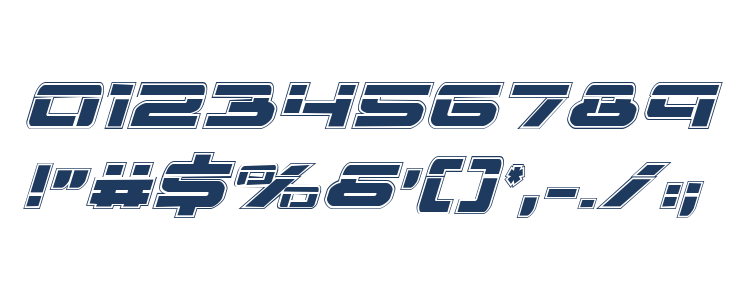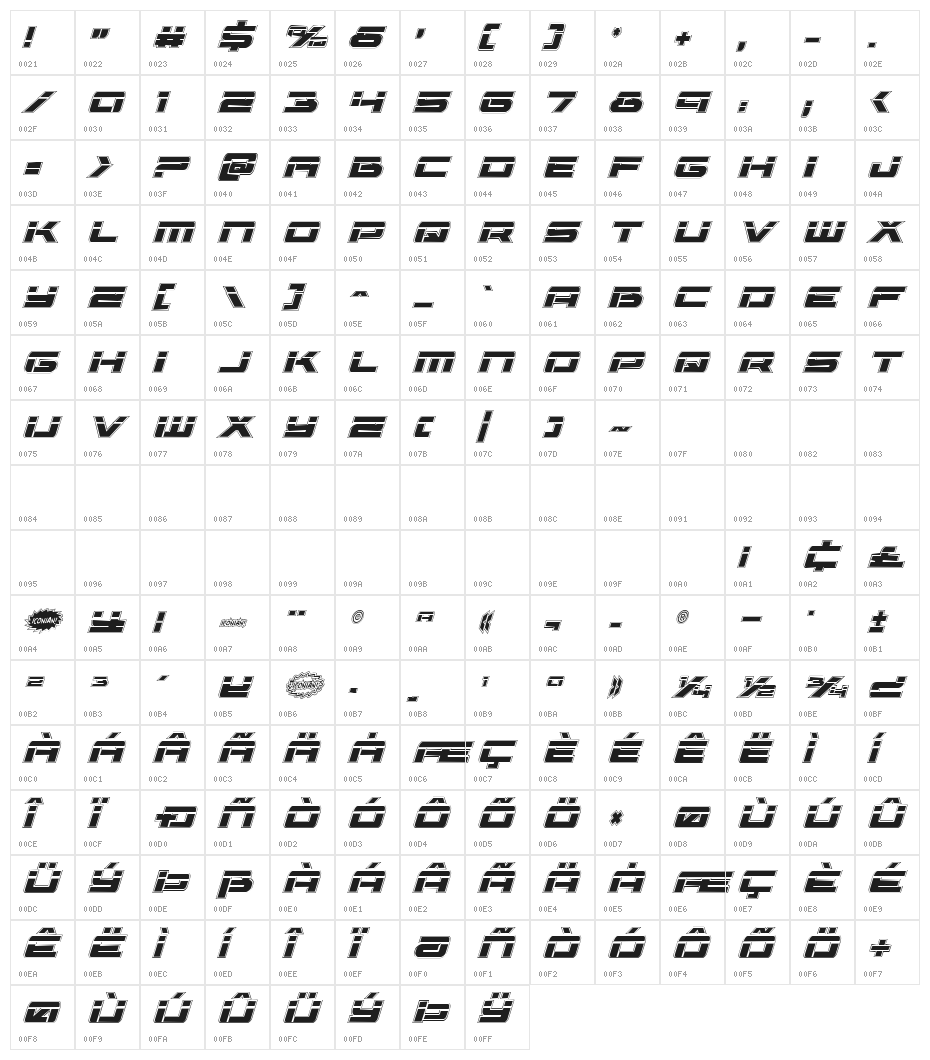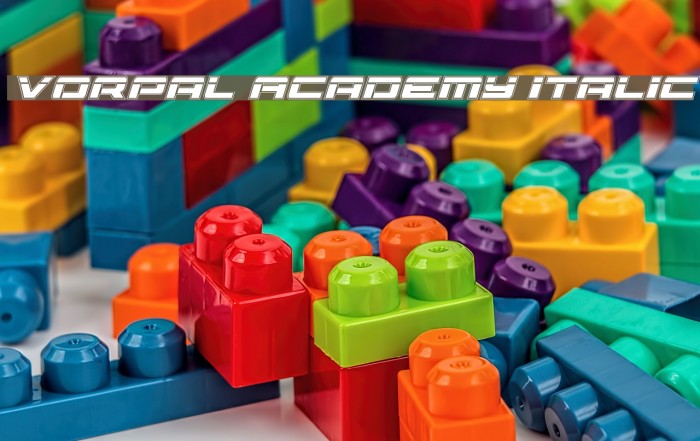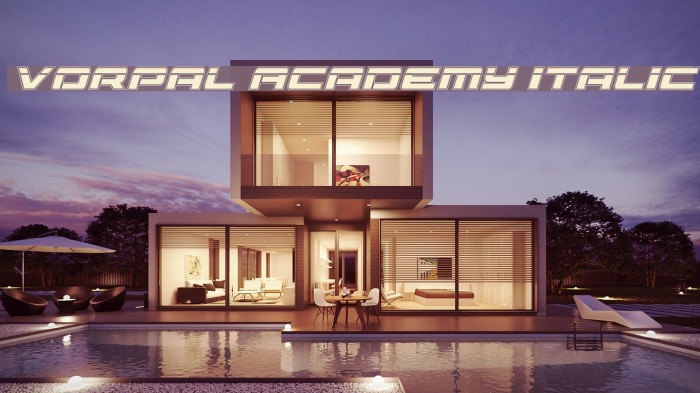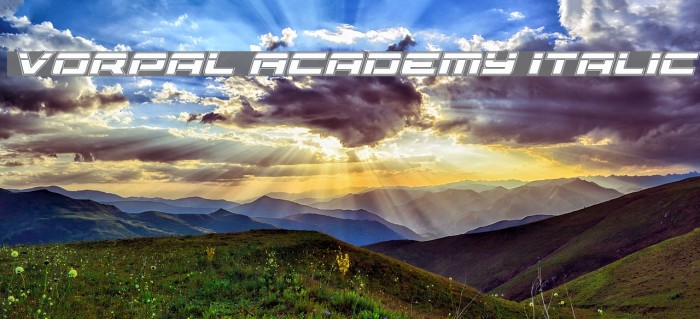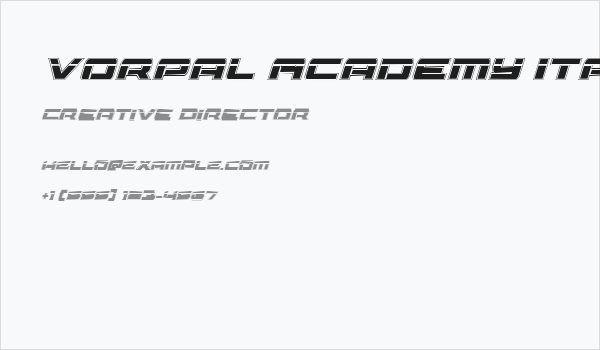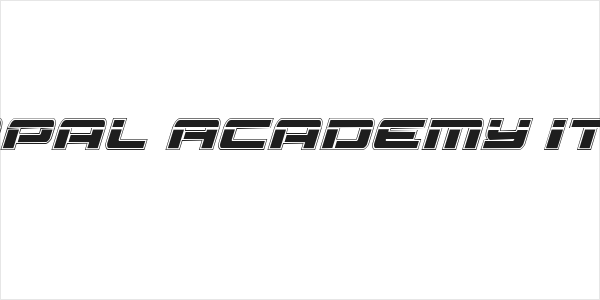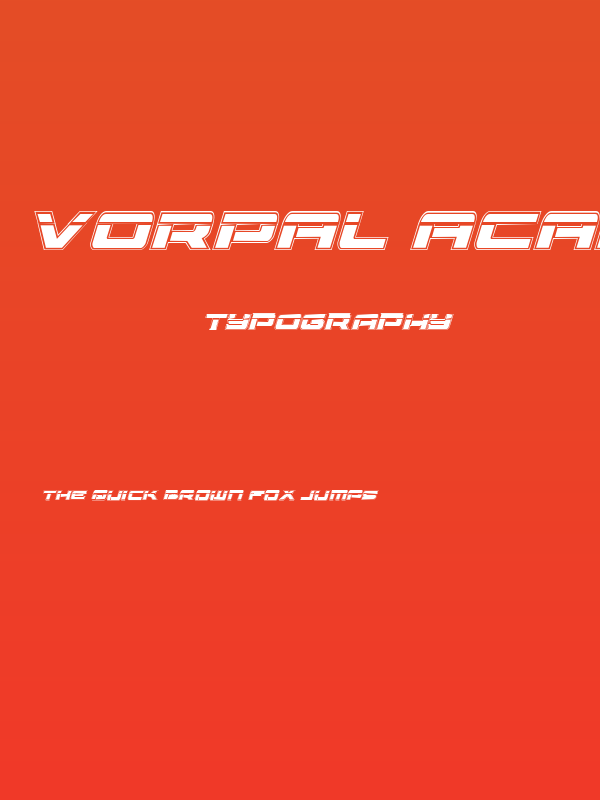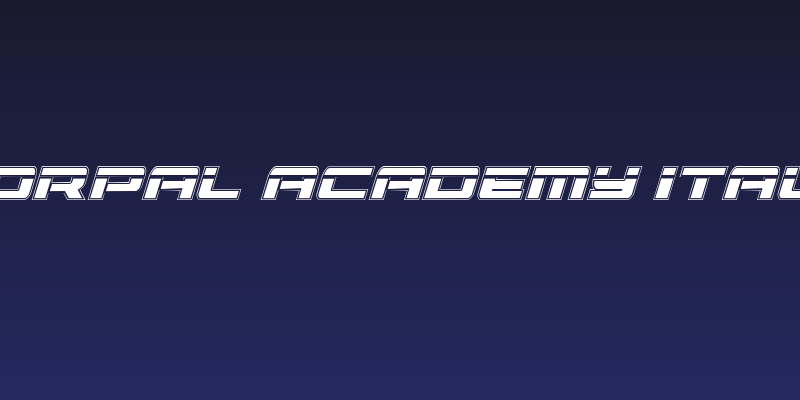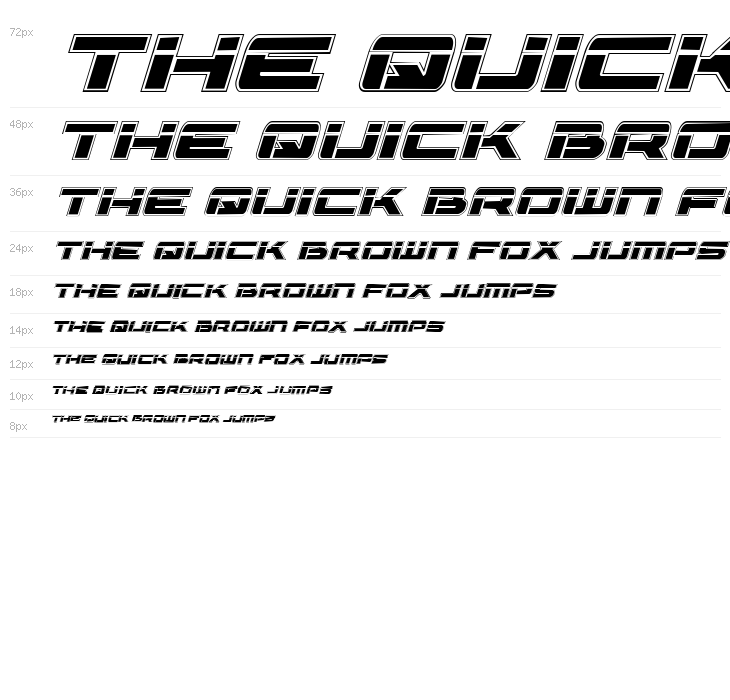
Vorpal Academy Italic Font
Vorpal Academy Italic Description
This font features a bold, futuristic design with a distinct italic slant, giving it a dynamic and forward-moving appearance. The characters are outlined with a double-layered effect, creating a sense of depth and dimension. The geometric shapes and sharp angles contribute to its modern and technical aesthetic. The uppercase and lowercase letters maintain a consistent style, with the numbers and special characters following suit. This font is ideal for projects that require a strong, impactful presence, such as technology branding, sports team logos, or sci-fi themed designs.